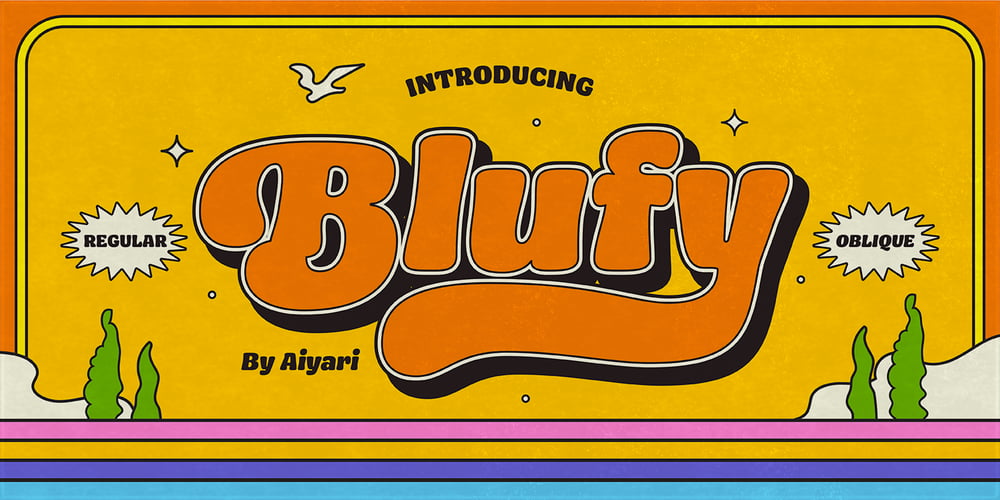
Ayr Blufy Font Family was designed by Ricky Rinaldi and published by Aiyari. Ayr Blufy contains 2 styles and family package options. Introducing a new softest retro font family called Blufy. Heavy influence by Cooper black typeface by Oswald Bruce Cooper and ballon letters form from 60s – 70s era. Blufy Font Family contains 2 style regular and oblique. It comes with Stylistic Alternate, ligature, Stylistic Set 01-10, & swash.Ayr Blufy Font Family is best used for headings, logotype, quotes, apparel design, invitation, poster, flyers, greeting cards, packaging, book cover, printed quotes, cover album, movie, & etc